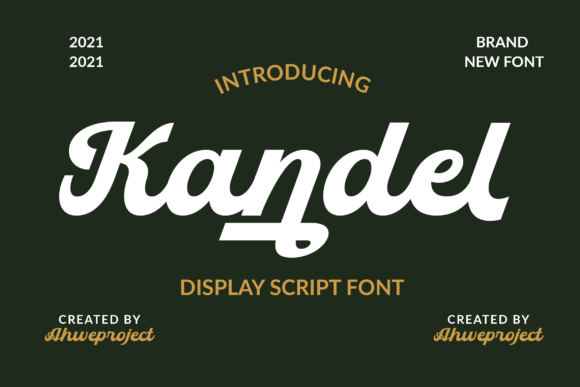
Prepare to be captivated by the enchanting Kandel font, a remarkable script typeface that will transform your creative projects into masterpieces. Kandel, with its bold and confident strokes, exudes a nostalgic charm that adds a touch of timeless elegance to your designs.
As you explore the depths of Kandel's character set, you'll discover a treasure trove of glyphs and swashes, accessible with ease thanks to its PUA encoding. Unleash your imagination and craft captivating headlines, logotypes, and designs that are sure to leave a lasting impression.
Kandel's versatility knows no bounds. Its strong and dynamic presence makes it the perfect choice for a variety of projects, from pantry labels to heartfelt invitations and personalized greeting cards. Let Kandel's timeless beauty elevate your designs and add a touch of sophistication to your creative endeavors.
With Kandel, you hold the key to unlocking a world of creative possibilities. Embrace the nostalgic charm of handwritten fonts and let your imagination soar. Whether you're a seasoned designer or just starting your creative journey, Kandel is the perfect font to add a touch of magic to your projects.